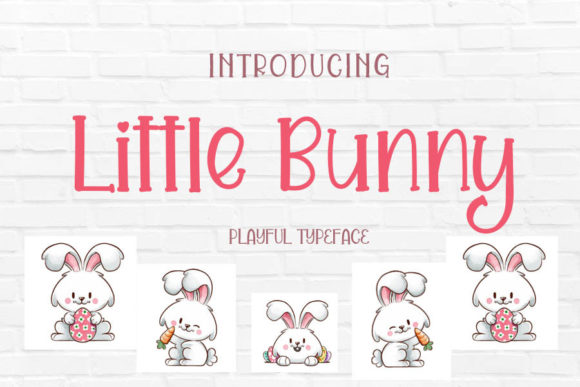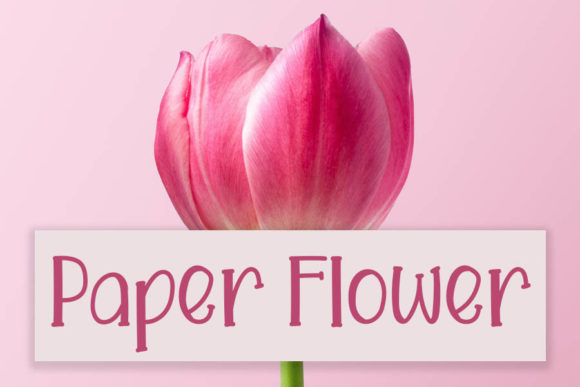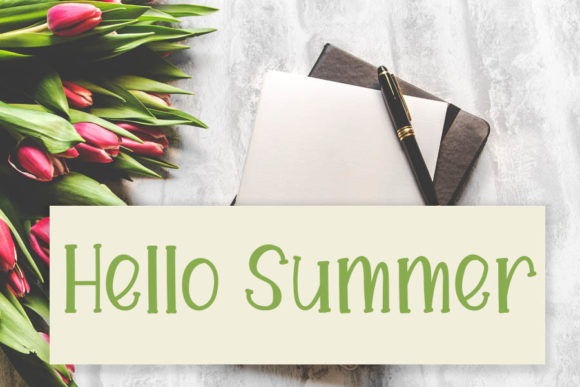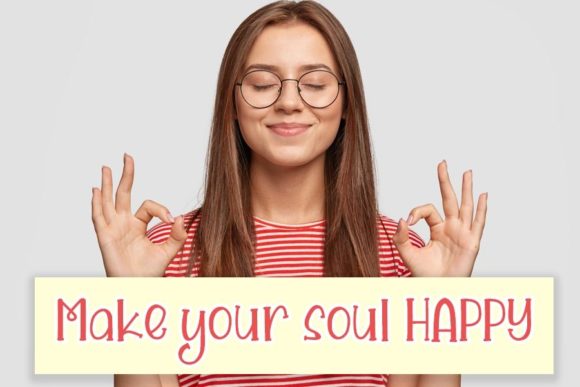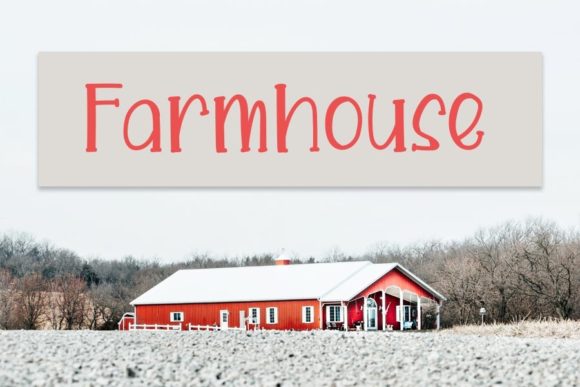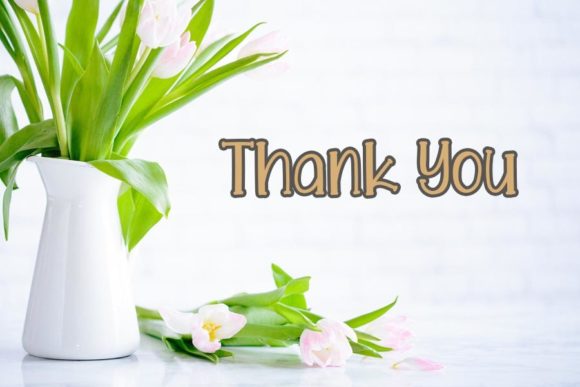
Little Bunny Font
About Little Bunny Font
Little Bunny is a cute and friendly handwritten font. Playful and a little bit quirky, this font is the perfect fit for all of your logos, branding, posters, and crafty DIY projects.